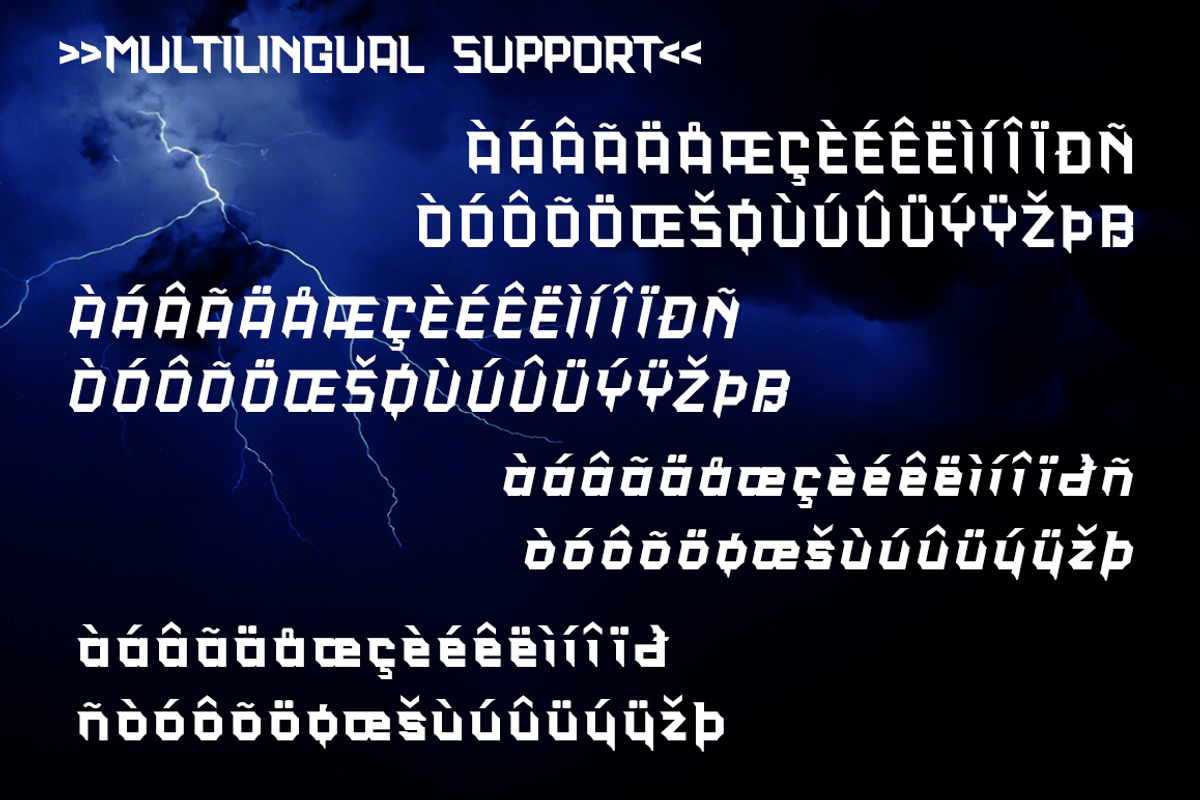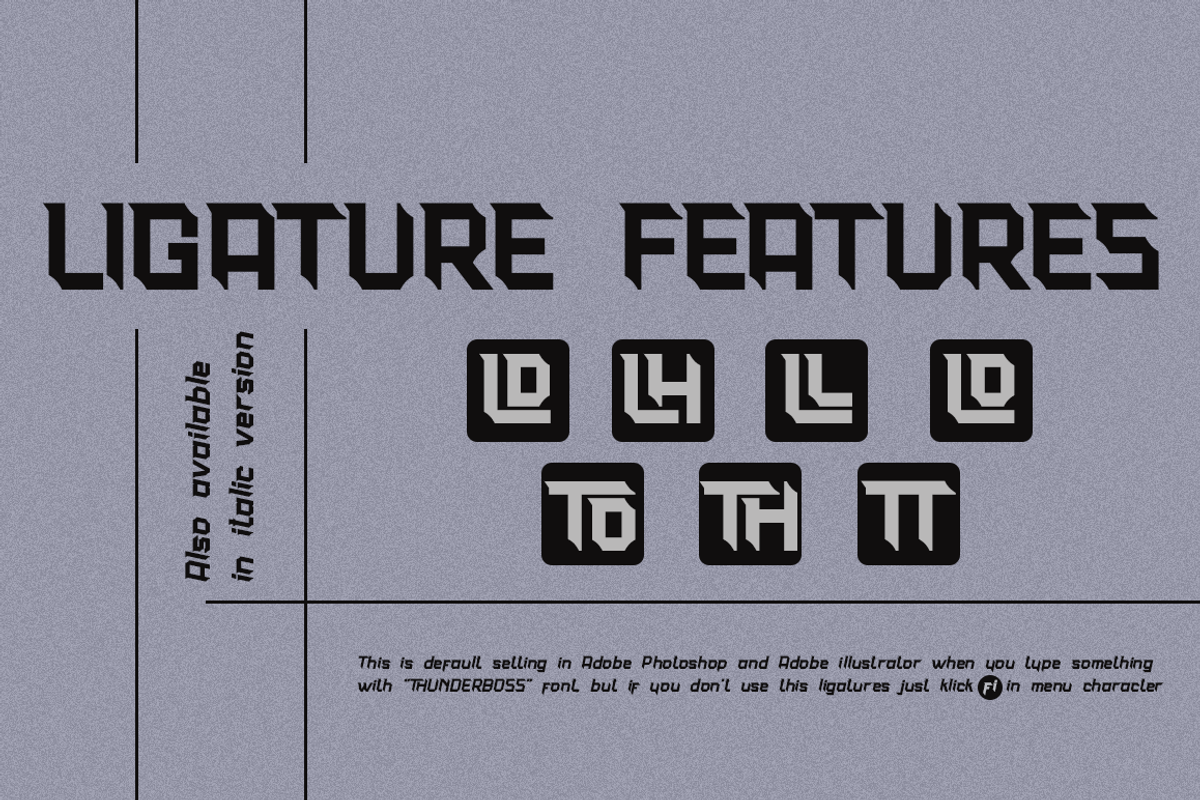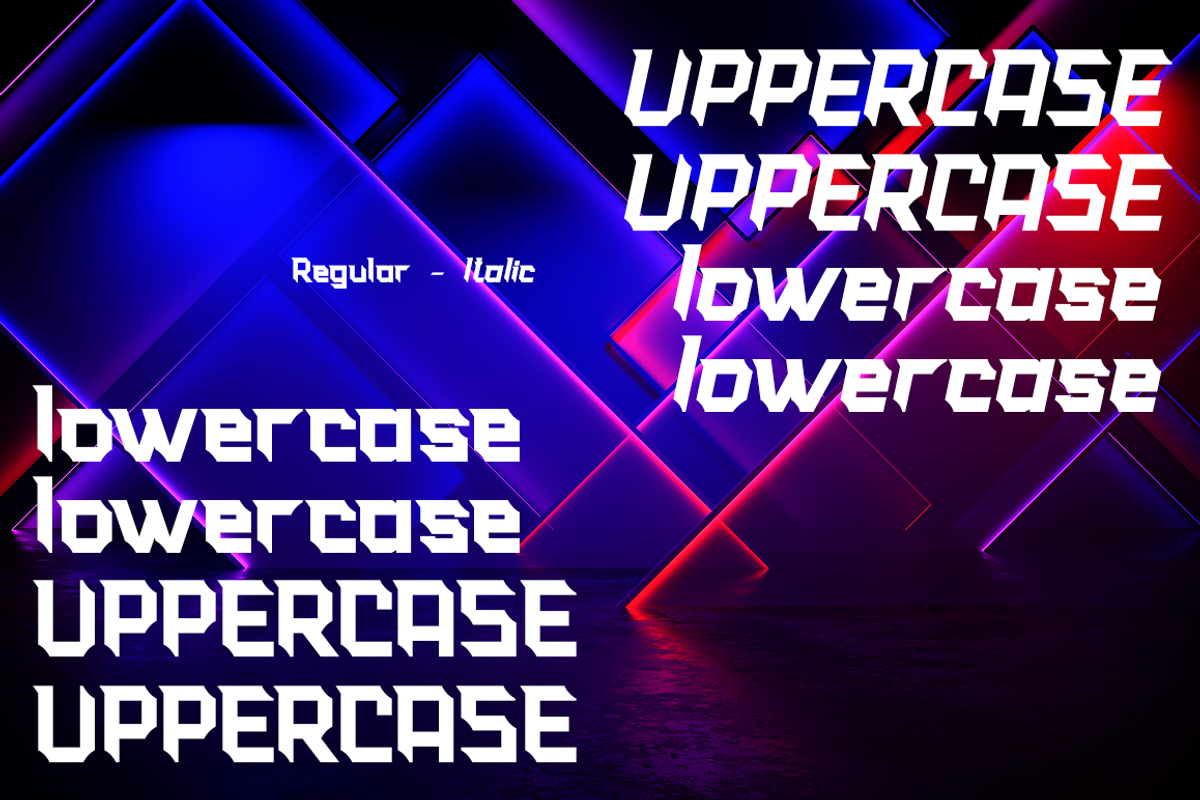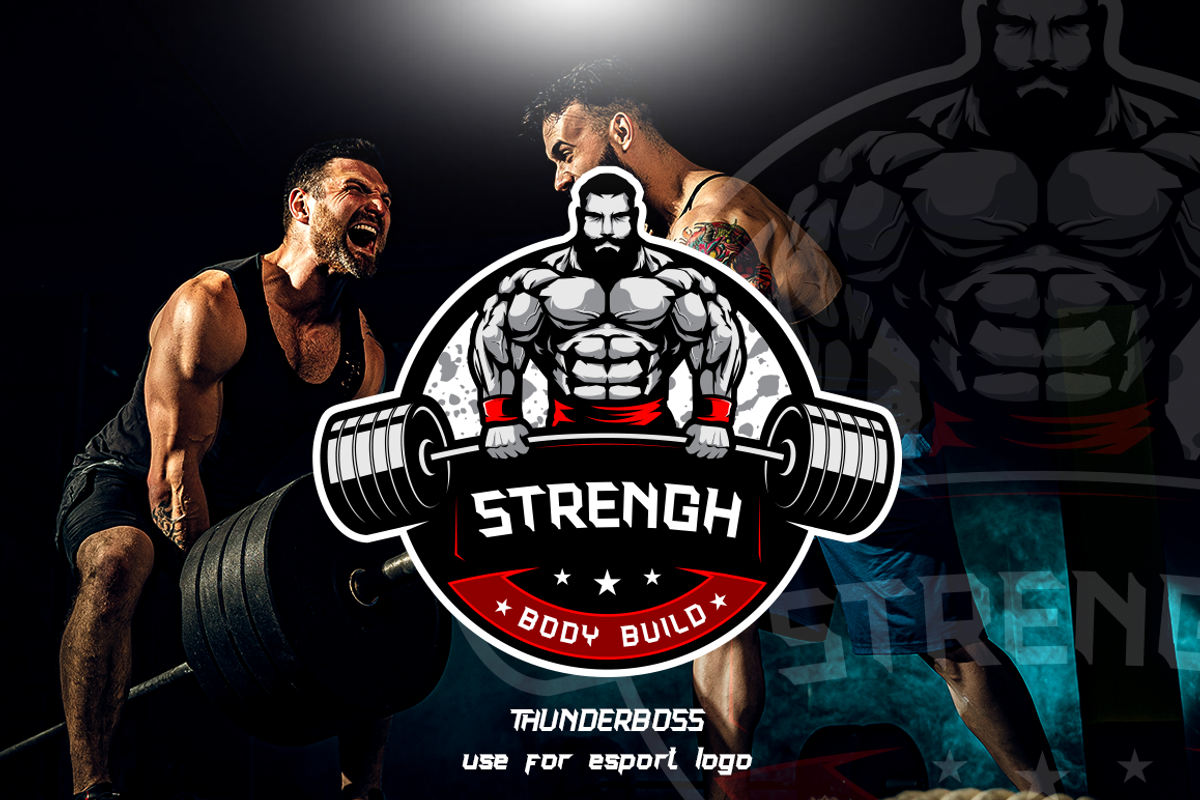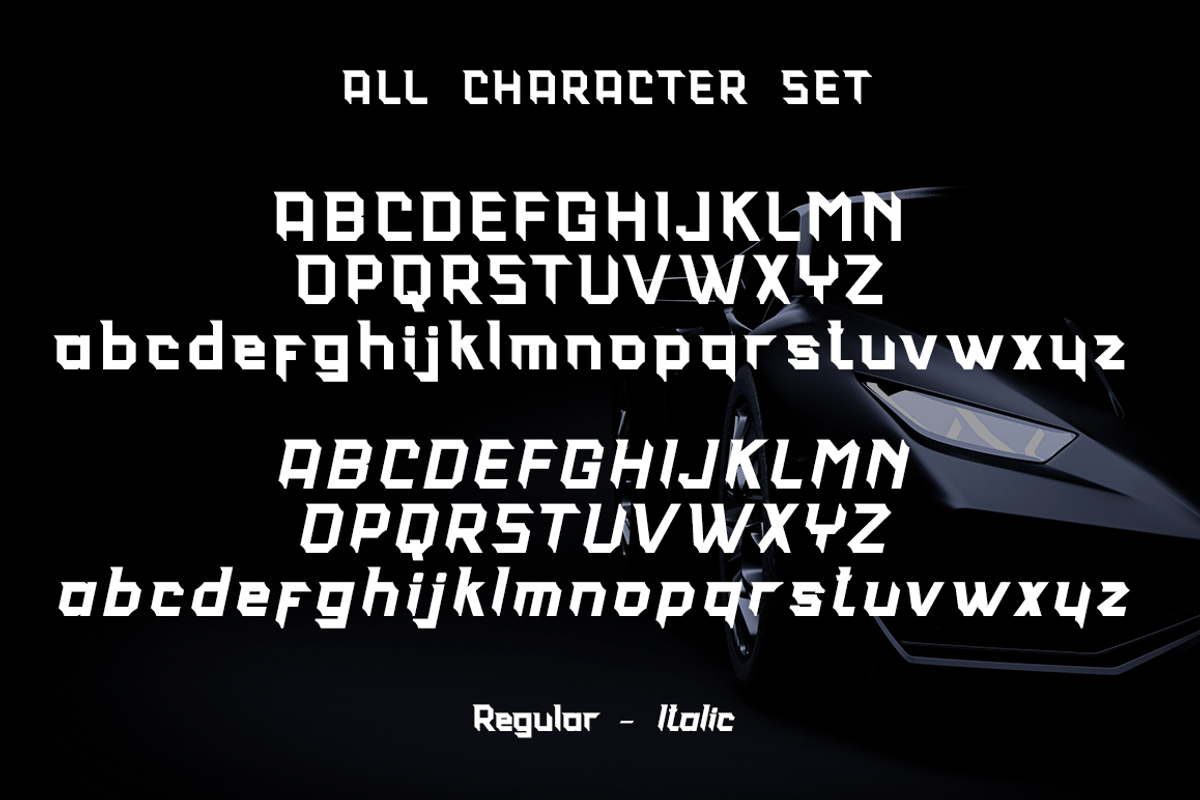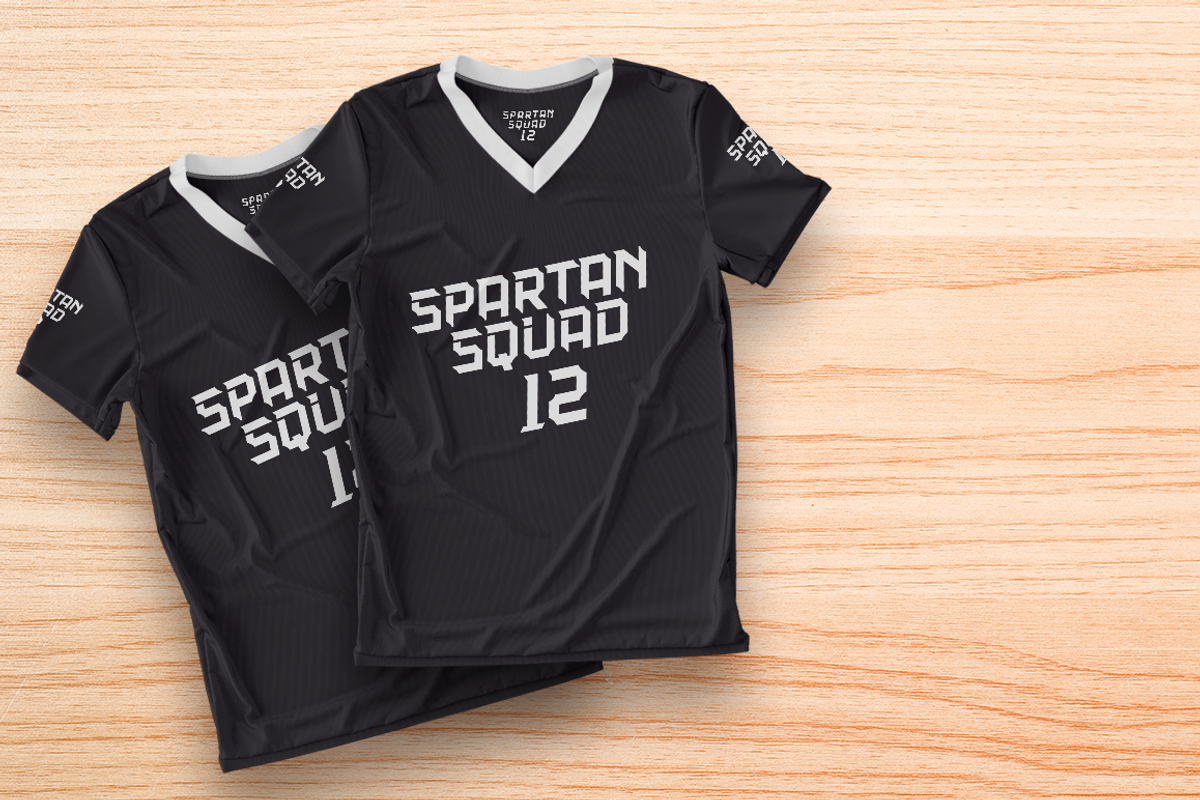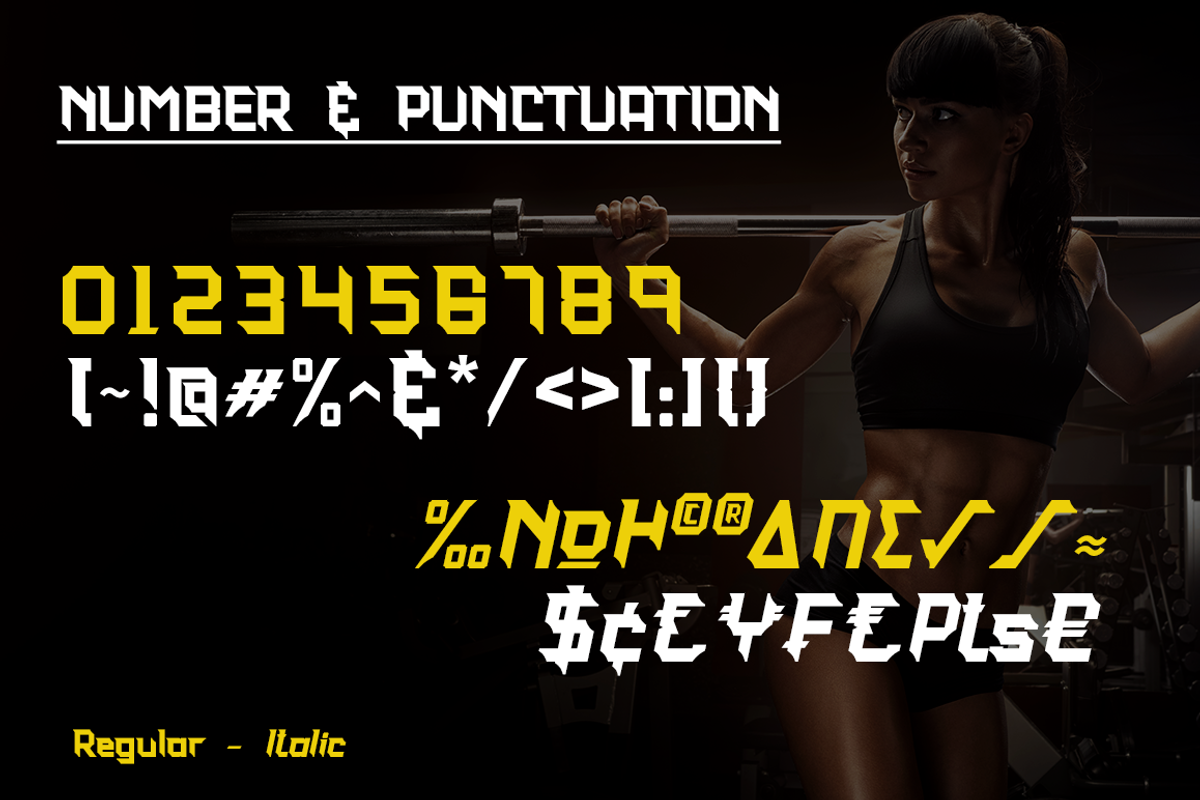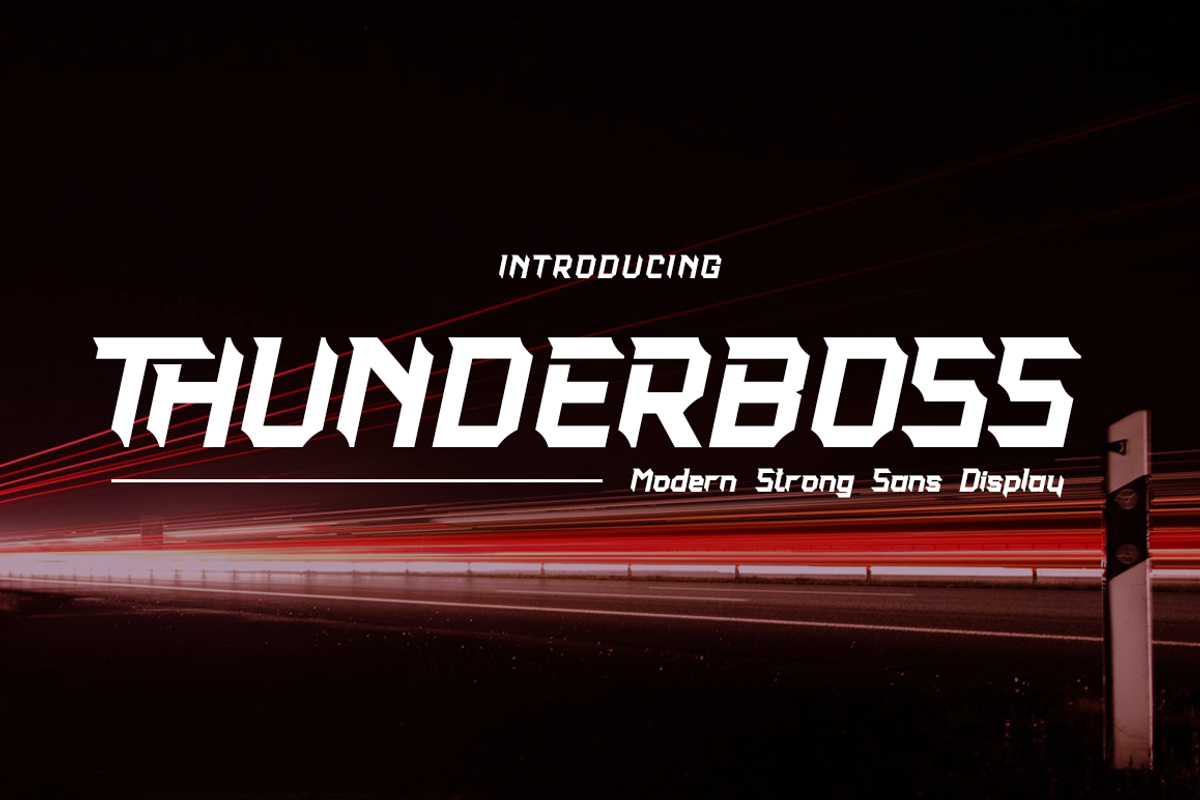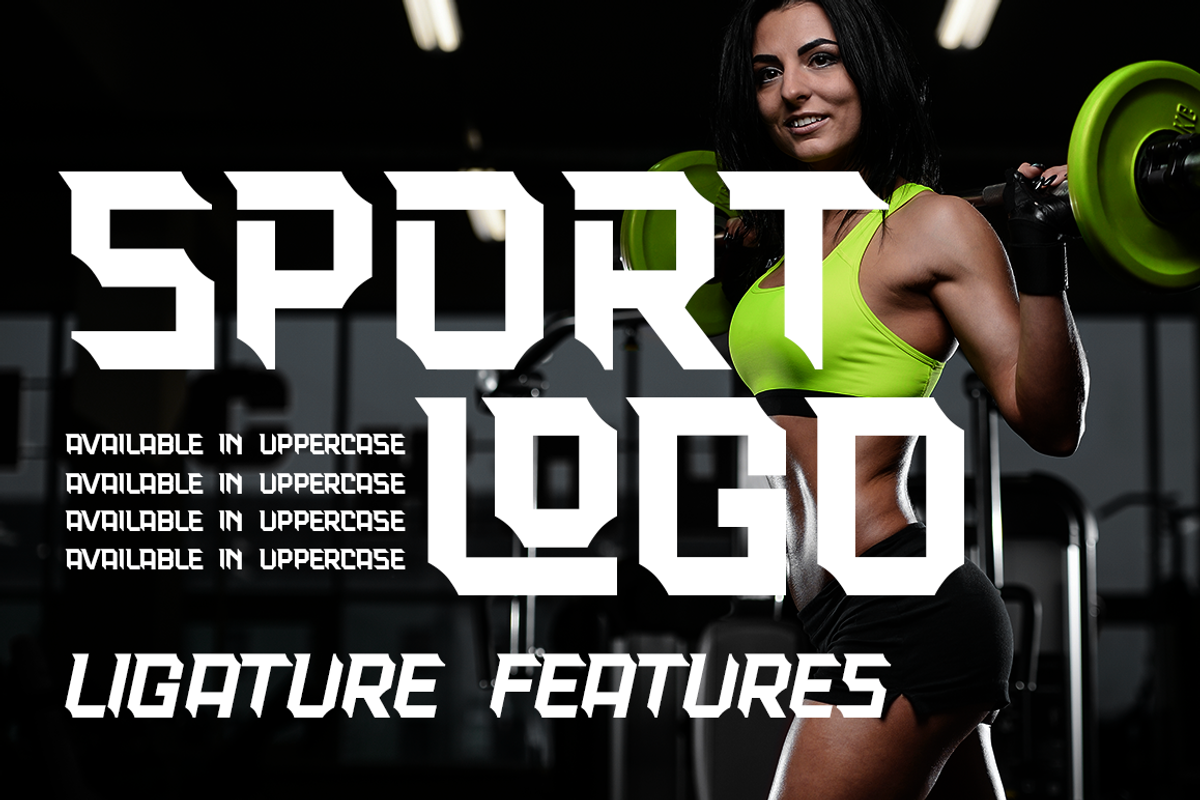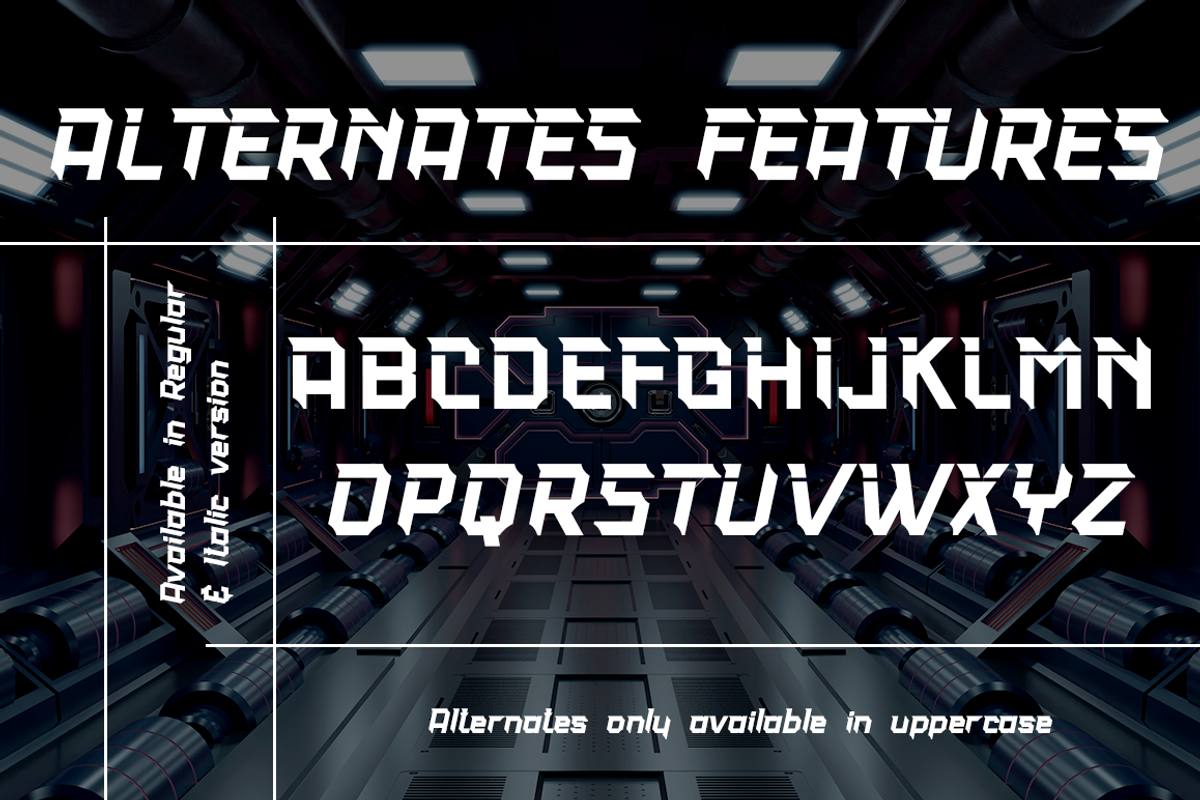
Thunderboss Modern Strong Sans
Thunderboss is a strong modern sans style with upper and lowercase feel nice balanced. Its wide range of uppercase with alternates and ligatures allow versatile design options and works perfectly for headlines, logos, posters, packaging, T-shirts and much more.
- Regular and Italic version
- Character set A-Z
- Ligatures in Uppercase
- Alternates in Uppercase
- Accented Characters
- Multiple Languages Supported